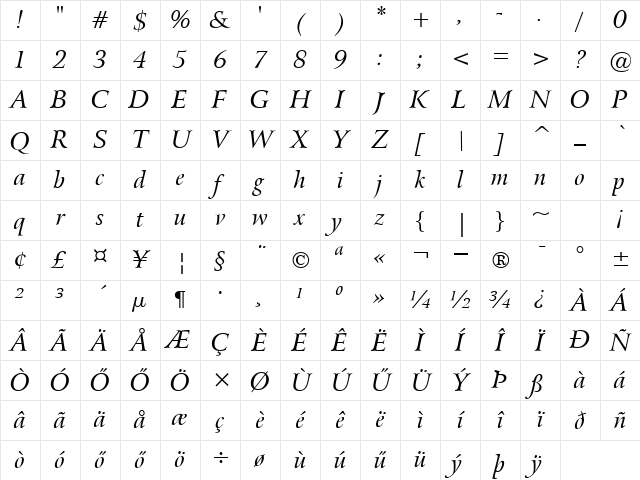
Complete H_Bitstream Arrus BT Italic glyph index. Displaying only characters natively supported by H_Bitstream Arrus BT Italic font.
H_Bitstream Arrus BT is a composed and adaptable typeface that performs quietly and consistently across a wide range of design contexts. The slanted form adds forward momentum and visual energy.
Pro Tip: Use H_Bitstream Arrus BT for emphasis, pull quotes, and subheadings where its slanted energy can add rhythm to the layout.